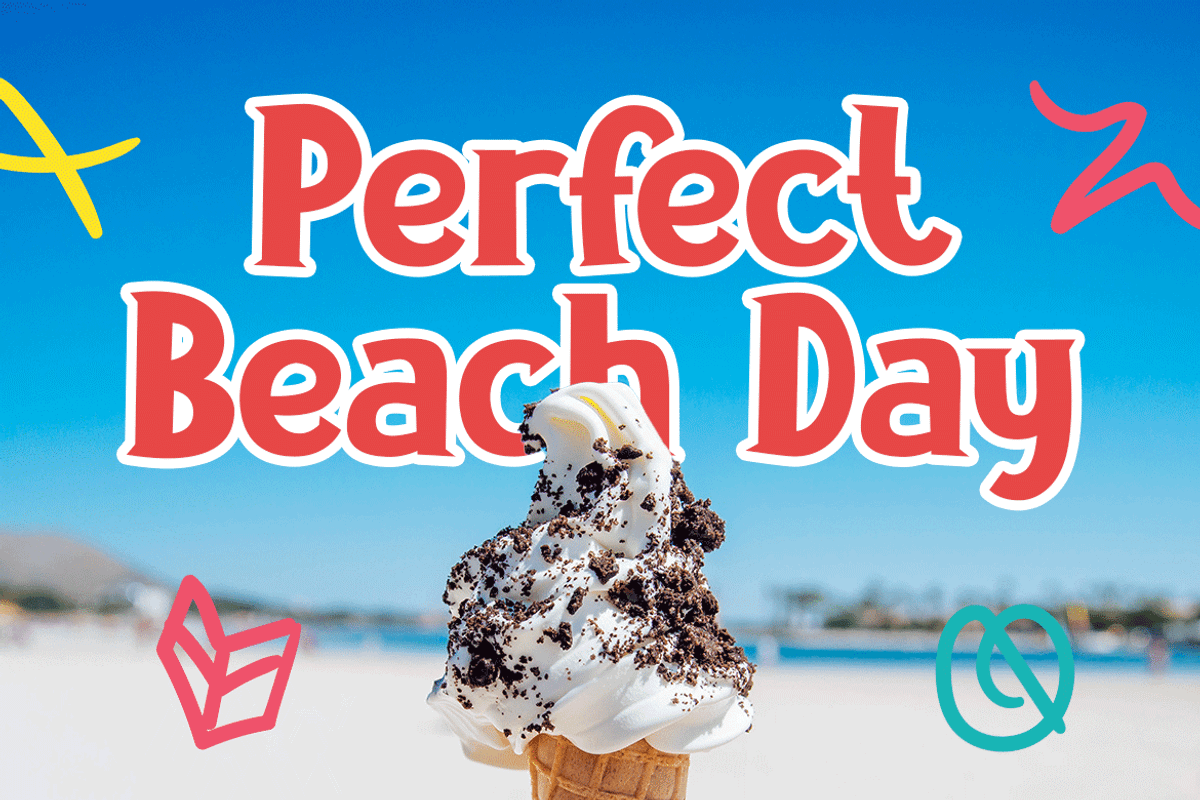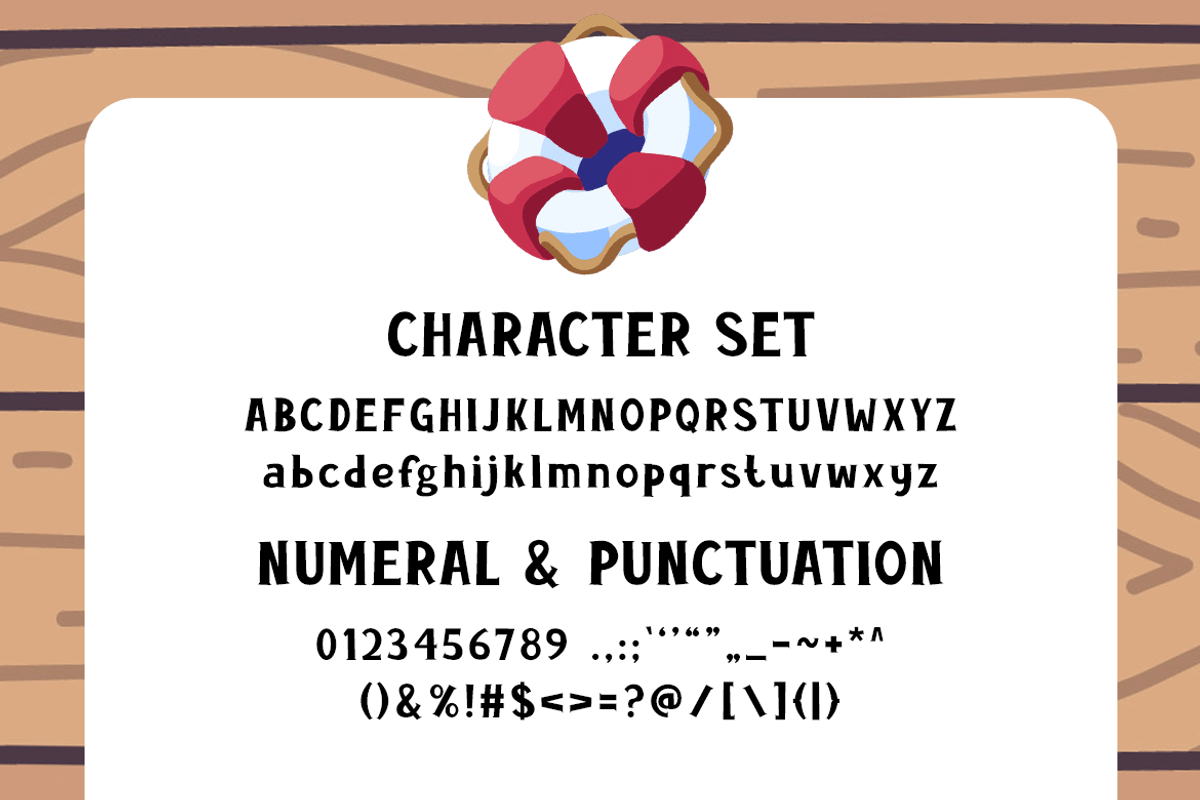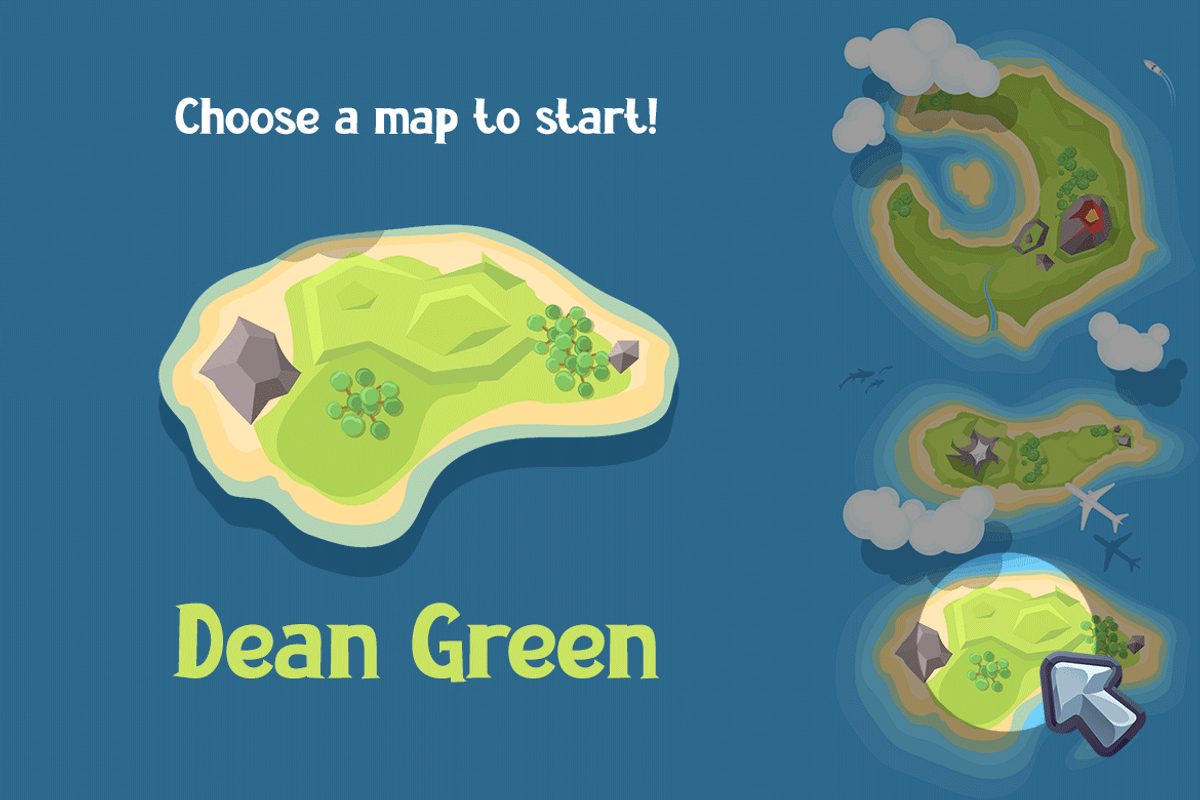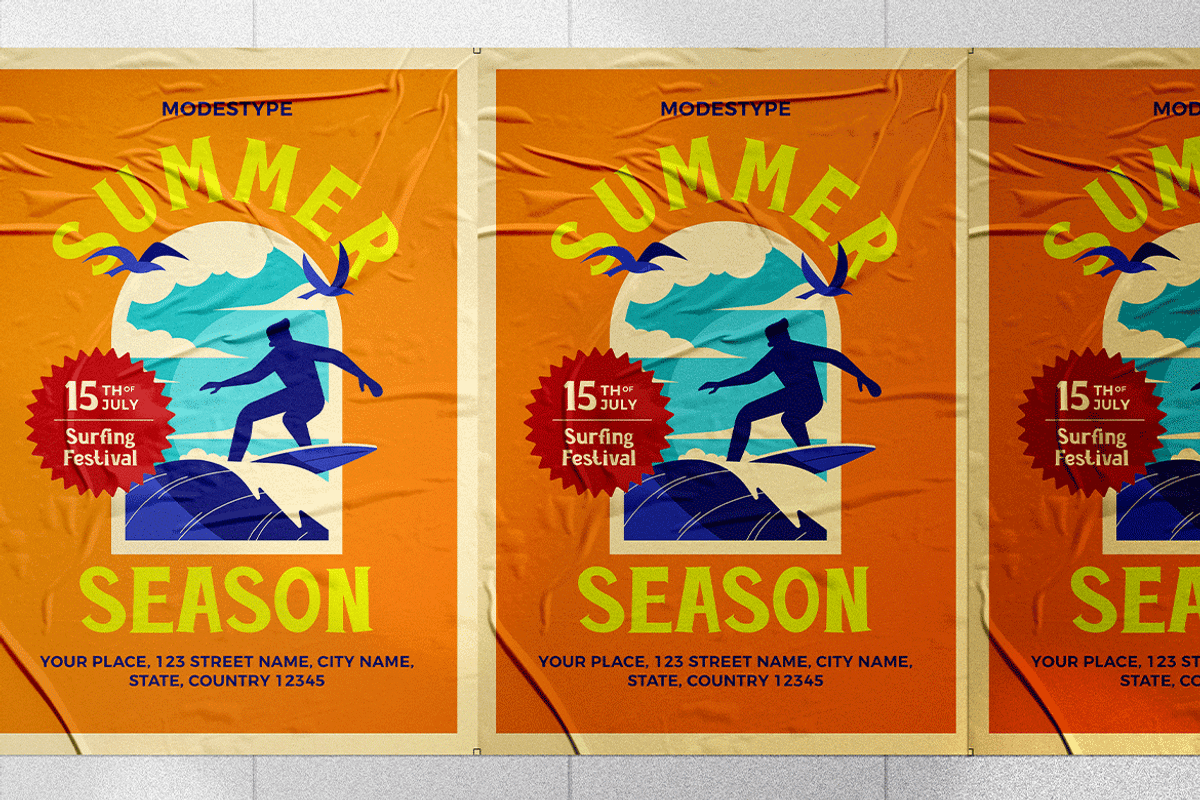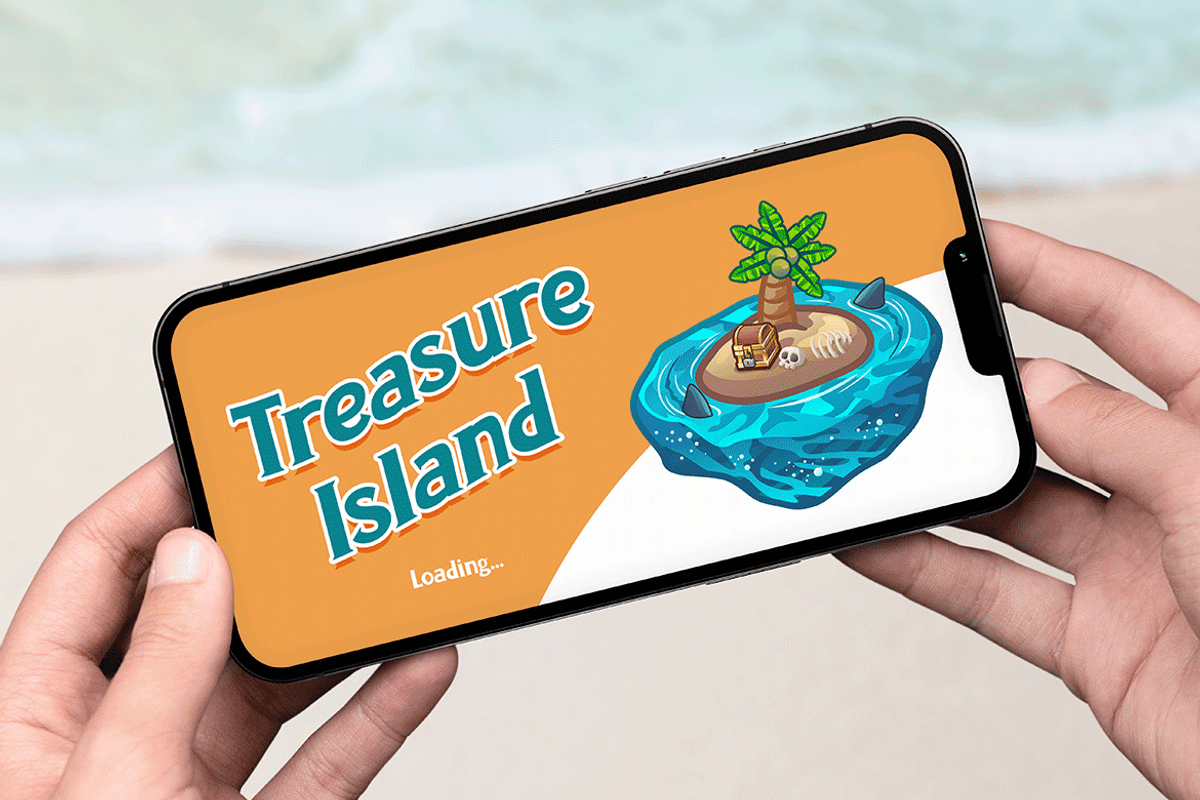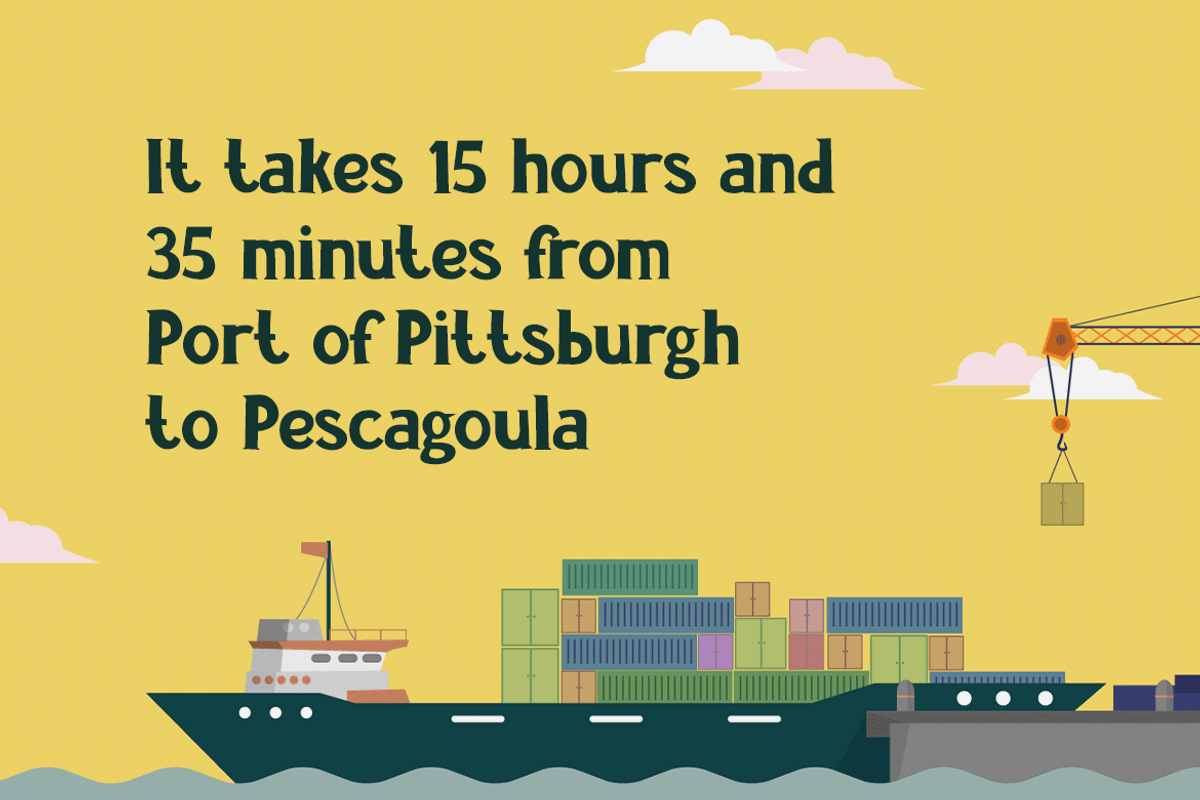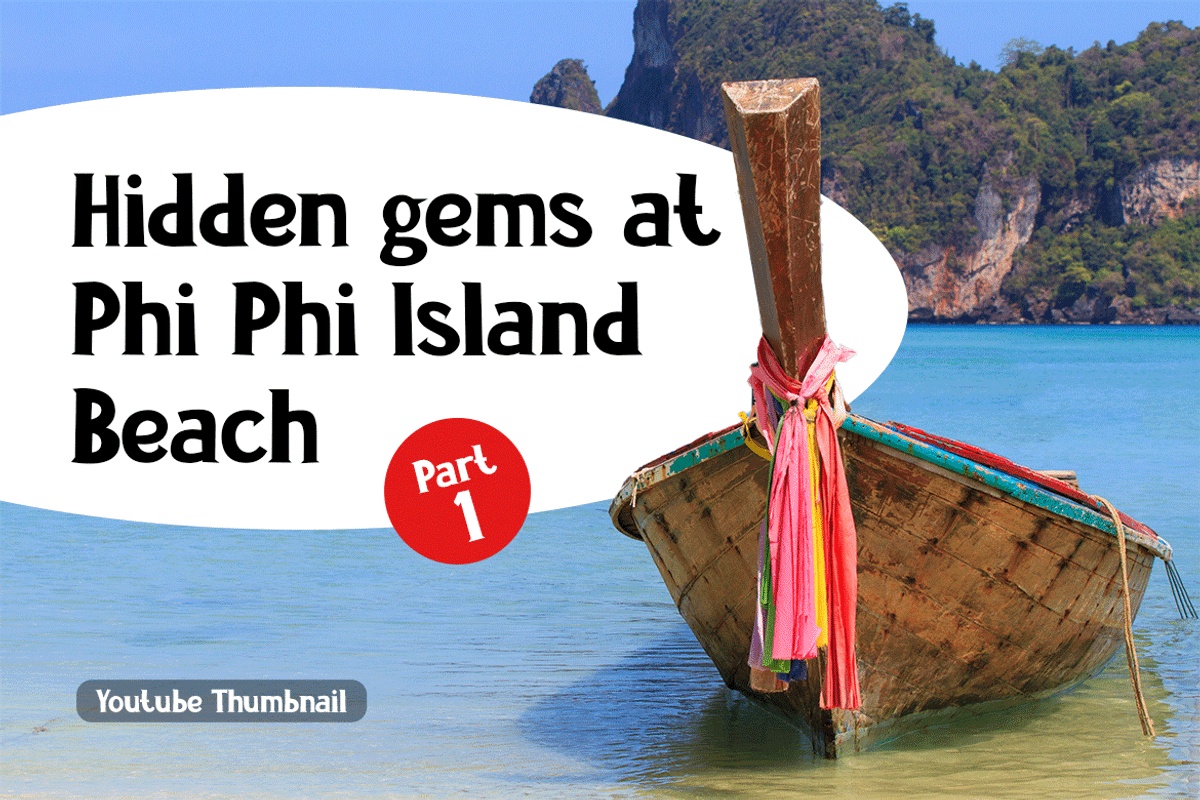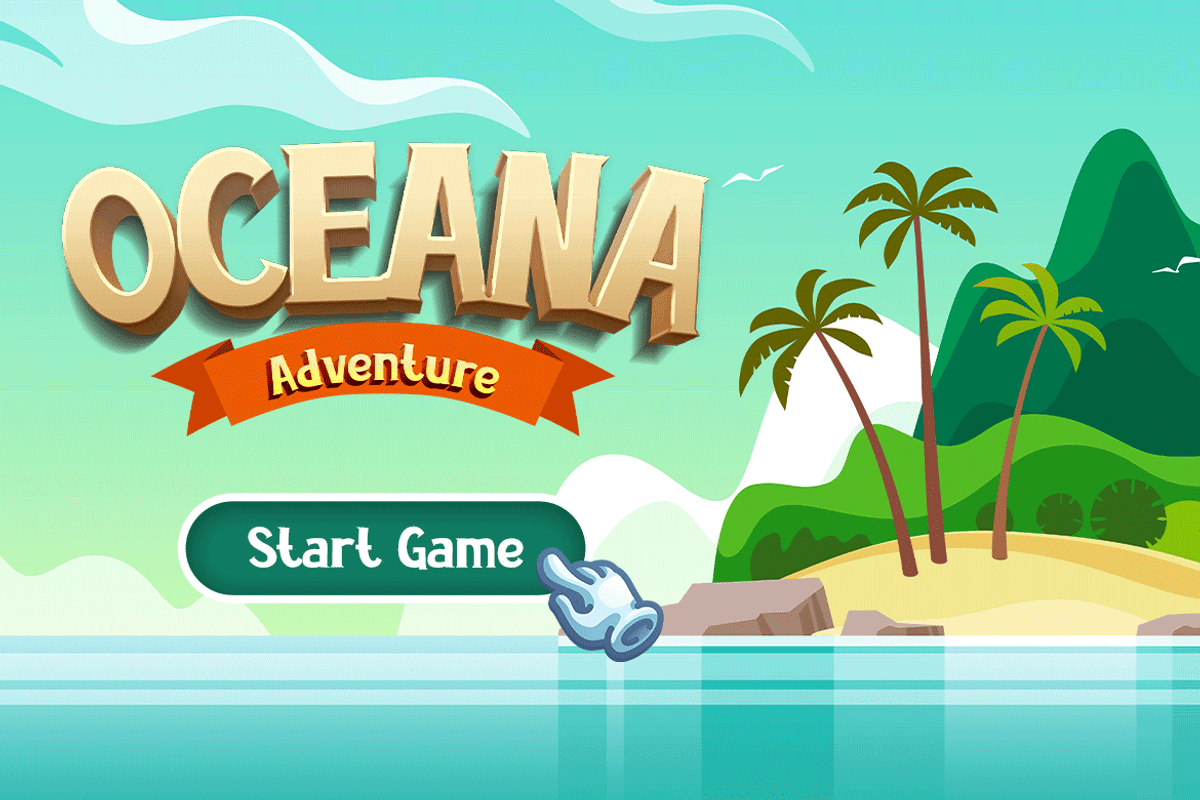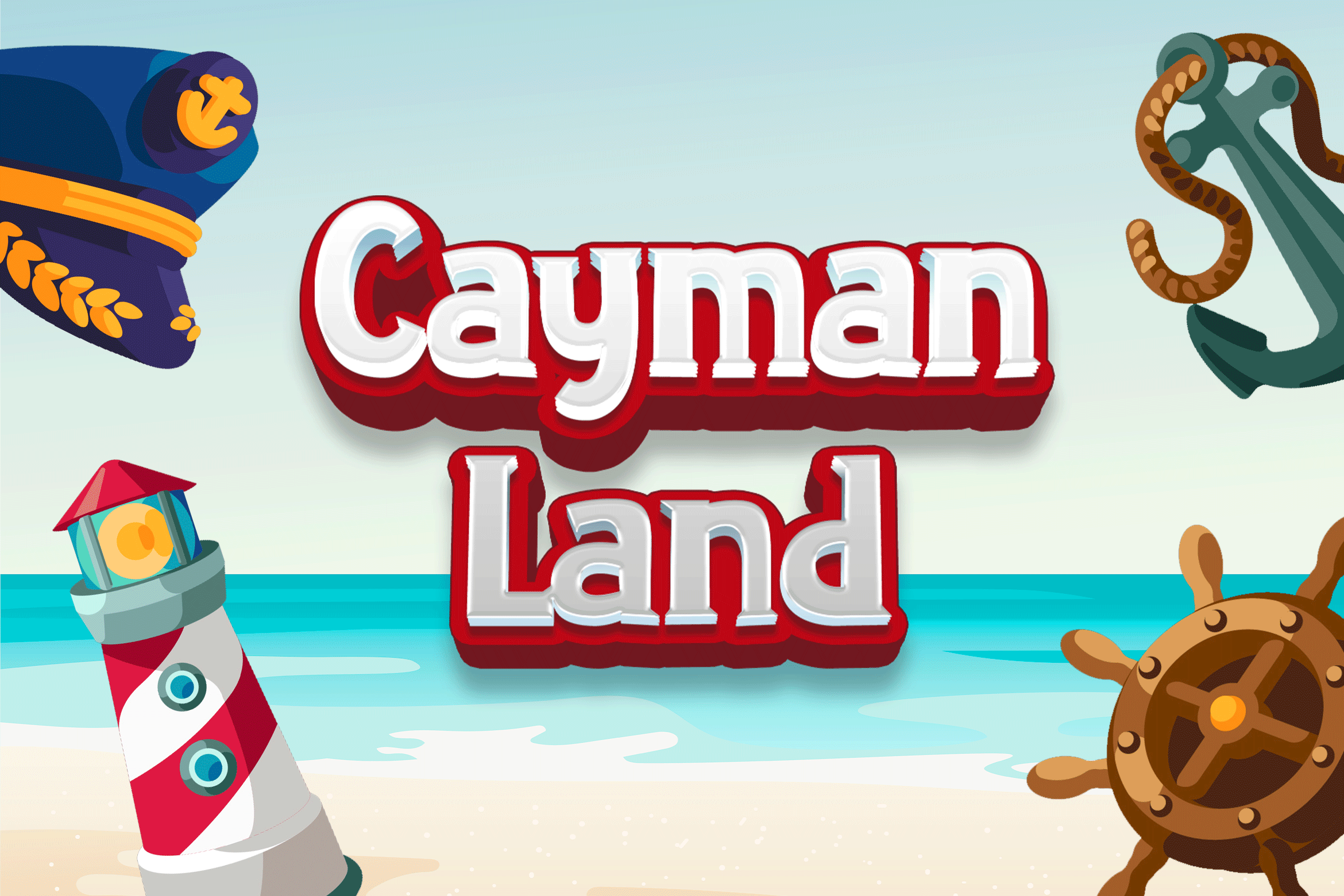
Cayman Land – Gaming Font
Introducing Cayman Land – the ultimate gaming font designed to bring your brand to life! Our expert copywriters specialize in creating engaging and SEO-friendly descriptions that help you stand out from the competition.
With its playful and fun design, Cayman Land is the perfect choice for brands looking to target a niche market of gamers, kids, and Instagram users. This versatile font is also suitable for use in cartoons, movies, and YouTube videos.
Featuring a modern and sans-serif style, Cayman Land is both eye-catching and easy to read. Its cute and funny design is perfect for creating an unforgettable brand identity that will resonate with your audience.